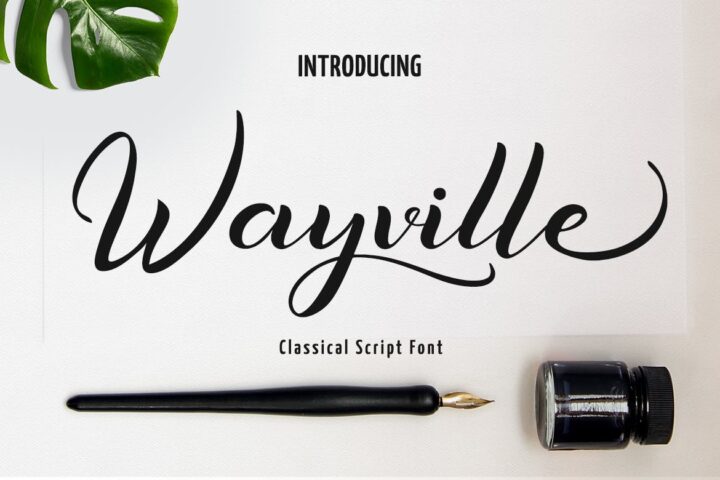
Wayville Font
Wayville is a casual script font, with clean high contrast stroke, slanted and fun character. This font is good for logo design, Social media, Movie Titles, Books Titles, short text even a long text letter, and good for your secondary text font with sans or serif.